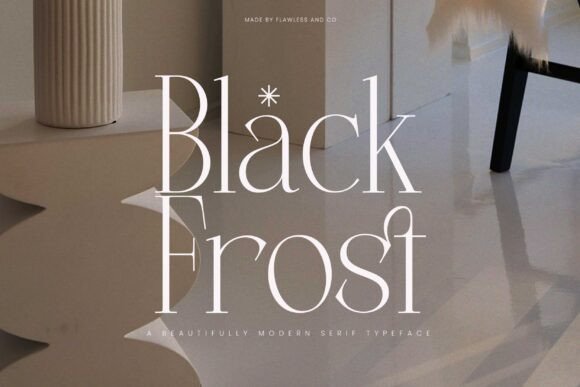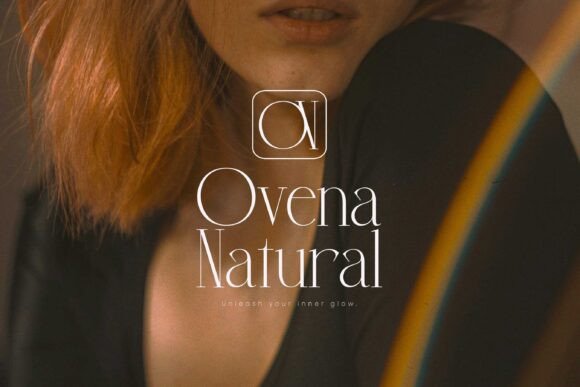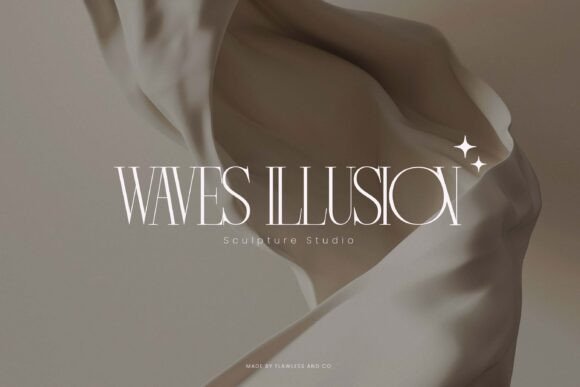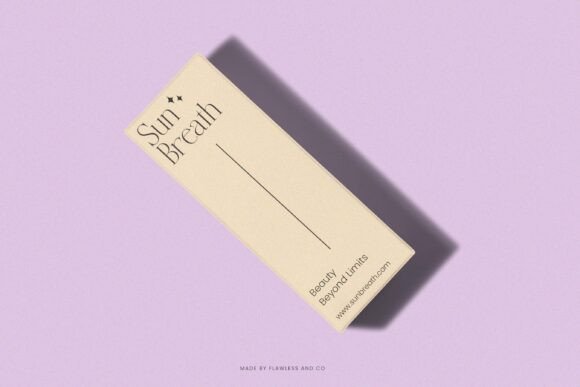
Black Frost Font: Elegant Serif Typography for Luxury Branding
About the Black Frost Font
Elevate your designs with Black Frost Font, a font that combines sophistication with readability. Black Frost is a modern elegant serif font that blends sophistication with contemporary style. With its refined letterforms and sharp details, this font is perfect for luxury branding, high-end fashion, editorial designs, product packaging, wedding invitations, and stylish social media graphics. Elevate your projects with the timeless beauty of Black Frost.
Black Frost’s elegant serifs and sharp details make it ideal for headlines, logos, and short-form text in luxury branding and high-end publications. It excels in applications requiring sophistication and visual impact, such as packaging for premium products or stylish signage. However, its refined forms are less suitable for extended body text or UI elements where readability at smaller sizes is paramount.
Pairing Black Frost effectively depends on the desired mood. For a classic feel, consider a clean, neutral sans-serif like Lato or Montserrat. To inject a touch of playfulness, a rounded geometric sans-serif like Poppins could work well. For a more dramatic effect, a contrasting script font with a similar level of refinement might be considered.
The overall personality of Black Frost is sophisticated and modern, lending itself to brands projecting an image of timeless elegance and quality. Its inherent formality makes it less appropriate for projects requiring a friendly or informal tone.
Black Frost Font Usage Examples
Black Frost Font Example